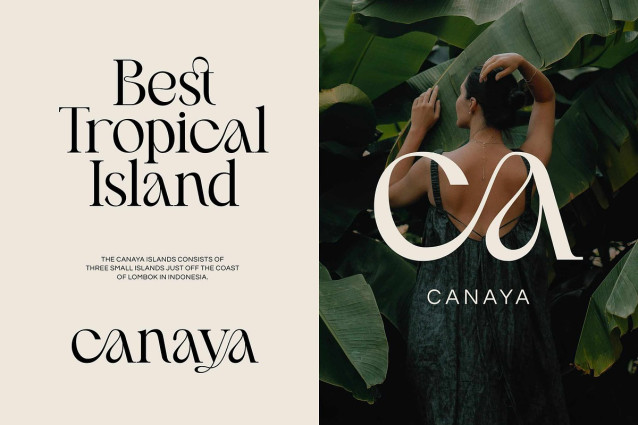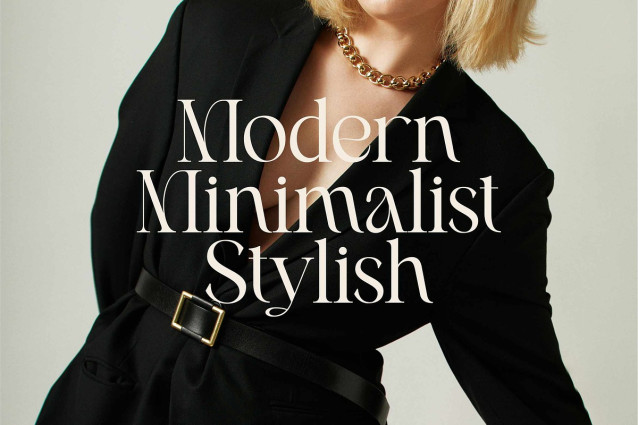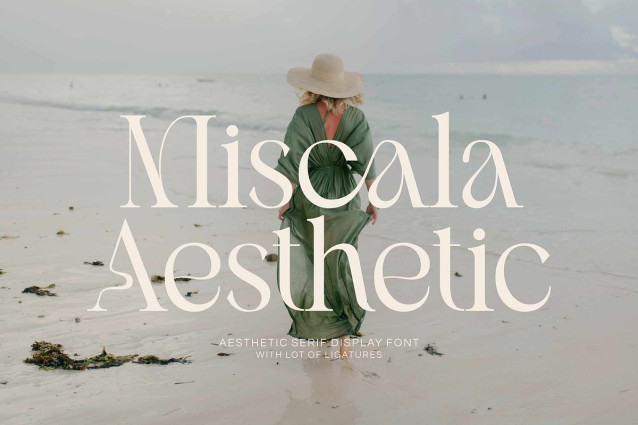
Miscala Aesthetic Font
Miscala Aesthetic is a refined serif font that exudes elegance and sophistication. It perfectly combines classic design with modern aesthetics, characterized by pointed ends and elongated serifs, giving it a high-fashion yet elegant look.
The Miscala Aestheetic font is a great choice for fashion campaigns, editorial design, luxury branding, and sophisticated design projects. It is especially suitable for logos, invitations, magazines, photography, product packaging, mockups, and especially for projects that aim for a luxurious space.